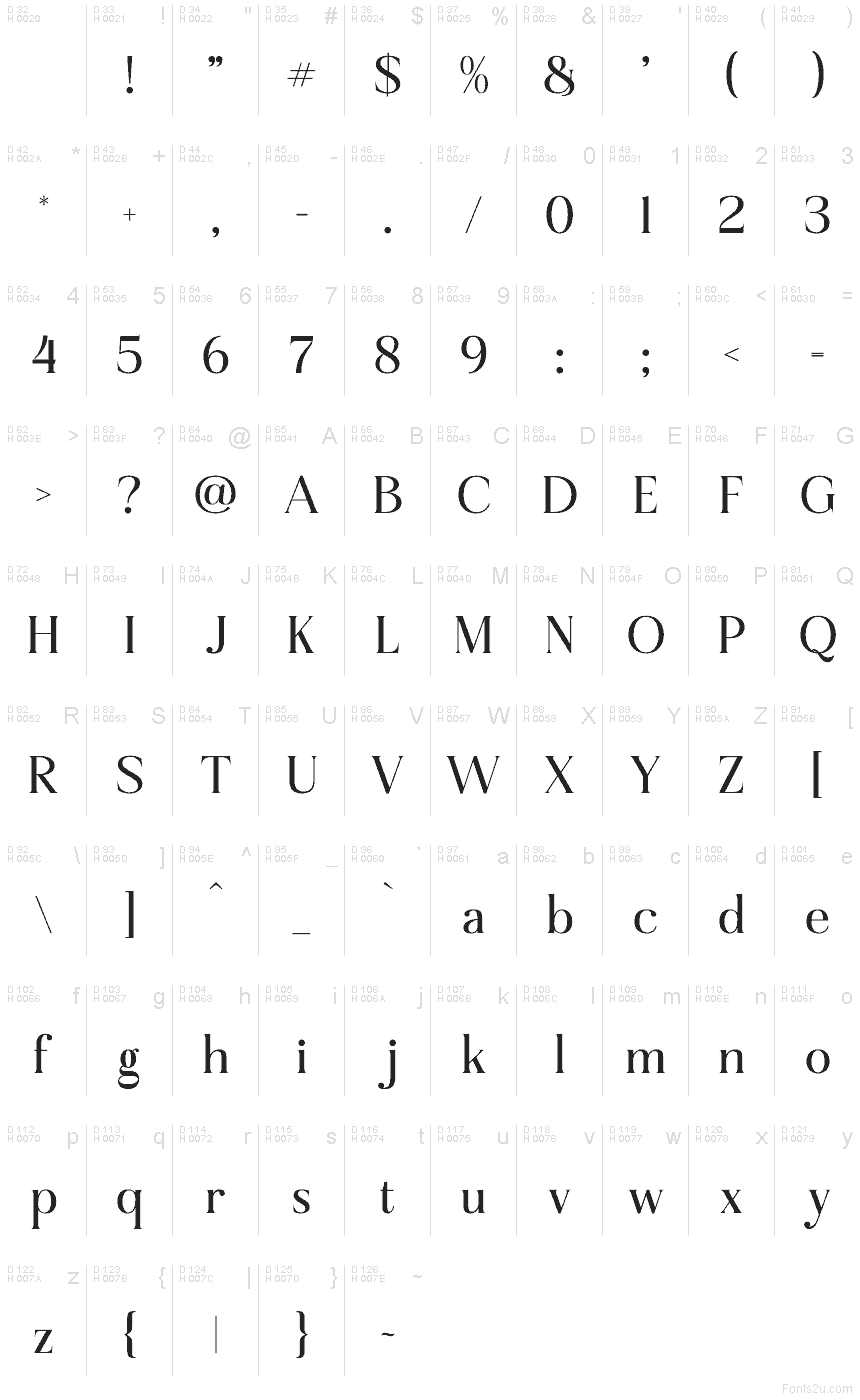
Fonphoria
Fonphoria font by Storytype Studio is a free serif typeface with a poised, almost musical grace. Its fine hairlines, elegant vertical stress, and subtly flared shapes give each word a refined, gallery-like presence—serious but never stuffy. The spacing feels airy and controlled, so even a single word can sit on the page like a polished logo or headline.
Using Fonphoria, you get a sophisticated voice for branding, book covers, magazine titles, fashion promos, posters, and website hero text. This free font shines when set larger, where its delicate details can breathe; pair it with a clean geometric sans for body copy to keep layouts sharp and contemporary.